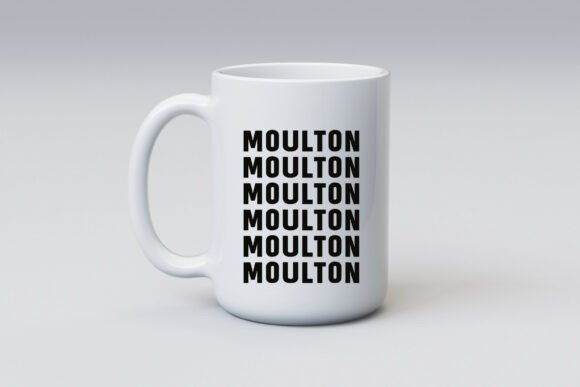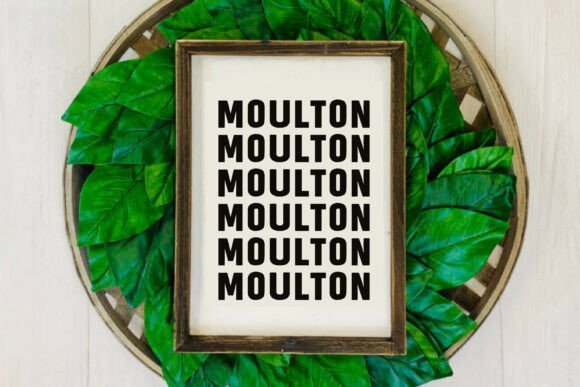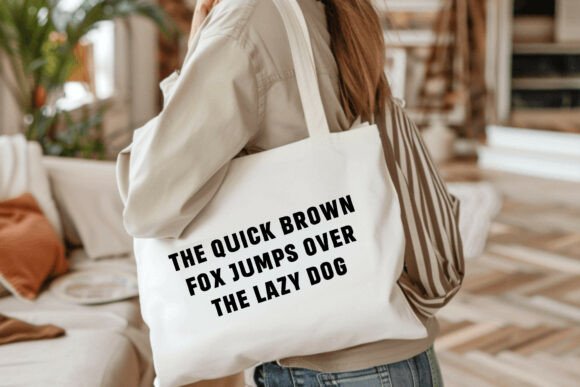
Introduction to Moulton Font
Moulton is a bold all-caps display typeface —a sturdy sans-serif font engineered for powerful headlines and vintage branding.
Broad stems, soft rounded corners , and slightly condensed proportions give this retro headline font a compact punch, while square-ish bowls, clean open counters, and an even vertical rhythm keep the lettering crisp and readable at any size The typeface sits between athletic and heritage signage, making it an ideal logo font , badge type , and poster typography choice.